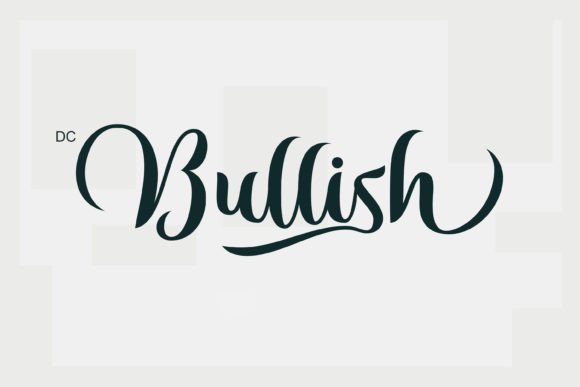
The Hunt for the Perfect Font: How Bullish Stole My Heart
I still remember the frustration of working on a project, hours spent searching for the perfect font, only to come up empty-handed. My client wanted something elegant, yet modern; something that would make their brand stand out. And then, I stumbled upon Bullish Font. This modern script calligraphy typeface has been a game-changer for me, and I’m excited to share my experience with you.
An Honest Review of Bullish Font
- ✨ Unique swashes that allow for beautiful lettering
- ✅ PUA encoded, making it easy to access all glyphs and swashes
- 💫 Perfect for a variety of design projects, including invitations, labels, logos, magazines, books, greeting/wedding cards, packaging, fashion, make-up, stationery, novels
- 👍 Modern and elegant feel, perfect for brands looking to make a statement
While Bullish Font is an amazing typeface, there are a few things to keep in mind: ⚠️ Some users may find the sharp characters a bit challenging to work with. Additionally, 🤔 the font may not be suitable for body text due to its script nature.
The Designer Inspiration Behind Bullish Font
While the true story behind Bullish Font’s creation may be unknown, it’s easy to imagine a designer passionately experimenting with calligraphy and script typography. Perhaps they wanted to create a font that would bring a touch of elegance and sophistication to any design project. Whatever the inspiration, Bullish Font is a beautiful addition to the world of typography.
Q: What is PUA encoding, and how does it benefit Bullish Font?
A: PUA (Private Use Area) encoding allows for easy access to glyphs and swashes within the font. This means you can customize your text with unique characters and flourishes, making your design stand out.
Q: Is Bullish Font suitable for body text?
A: While Bullish Font is an amazing typeface, it’s not ideal for body text due to its script nature. Instead, use it for headlines, titles, or emphasis text to add visual interest to your design.